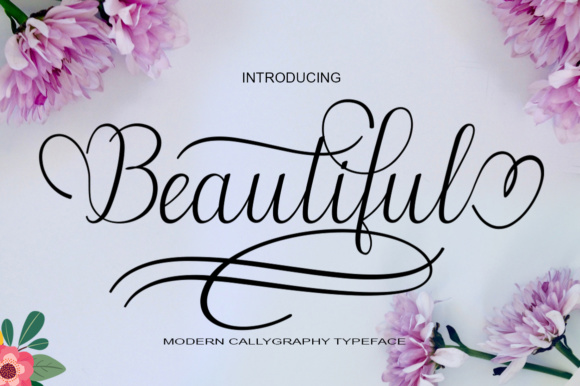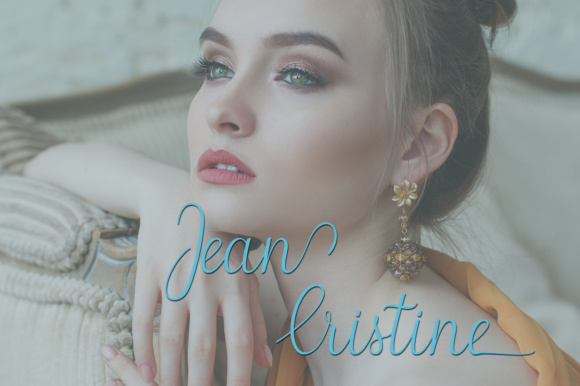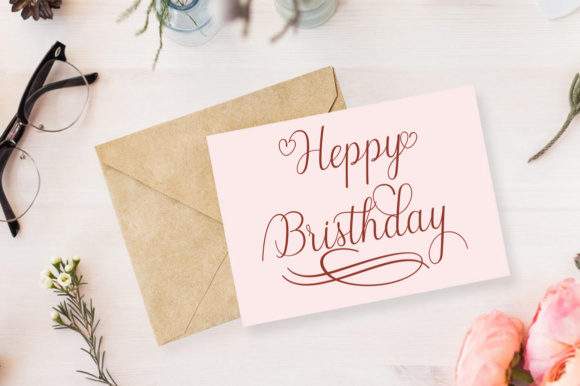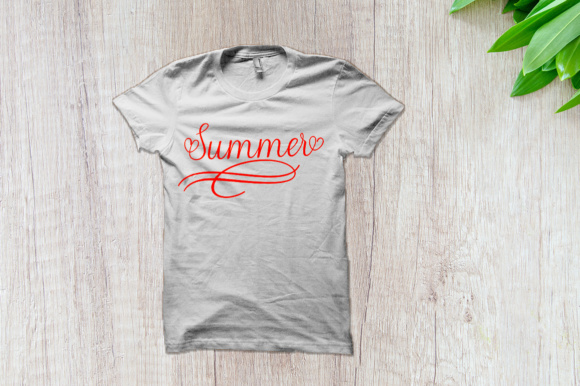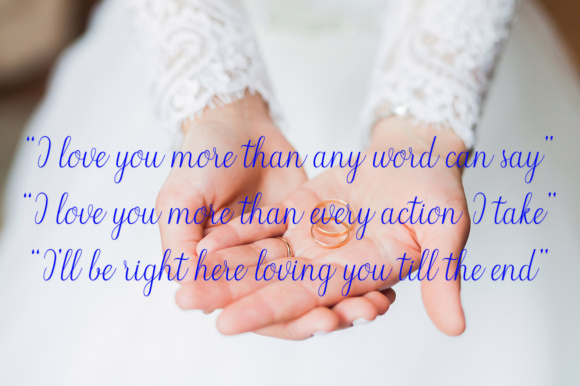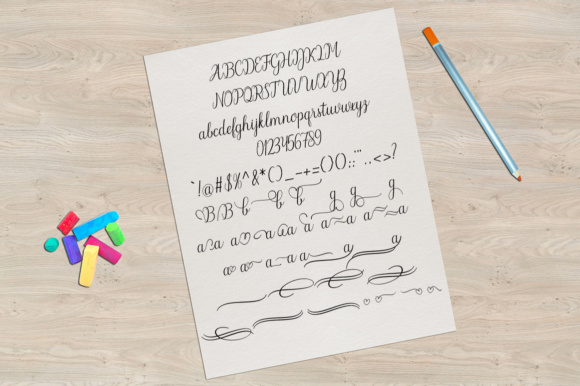
Beautiful Font
About Beautiful Font
The Beautiful is a new and fresh script typeface with handmade calligraphy, decorative characters and a dancing baseline.
It’s wonderful on invitations, greeting cards, branding material, business cards, quotes, posters, and more!